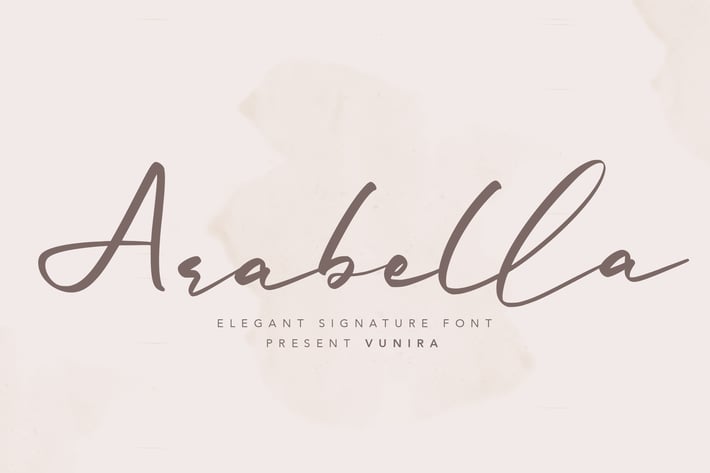
Arabella | Elegant Signature Font
Arabella | Elegant Signature Font with a calligraphy style, So beautiful on invitation like greeting cards, branding materials, business cards, quotes, posters, and more!